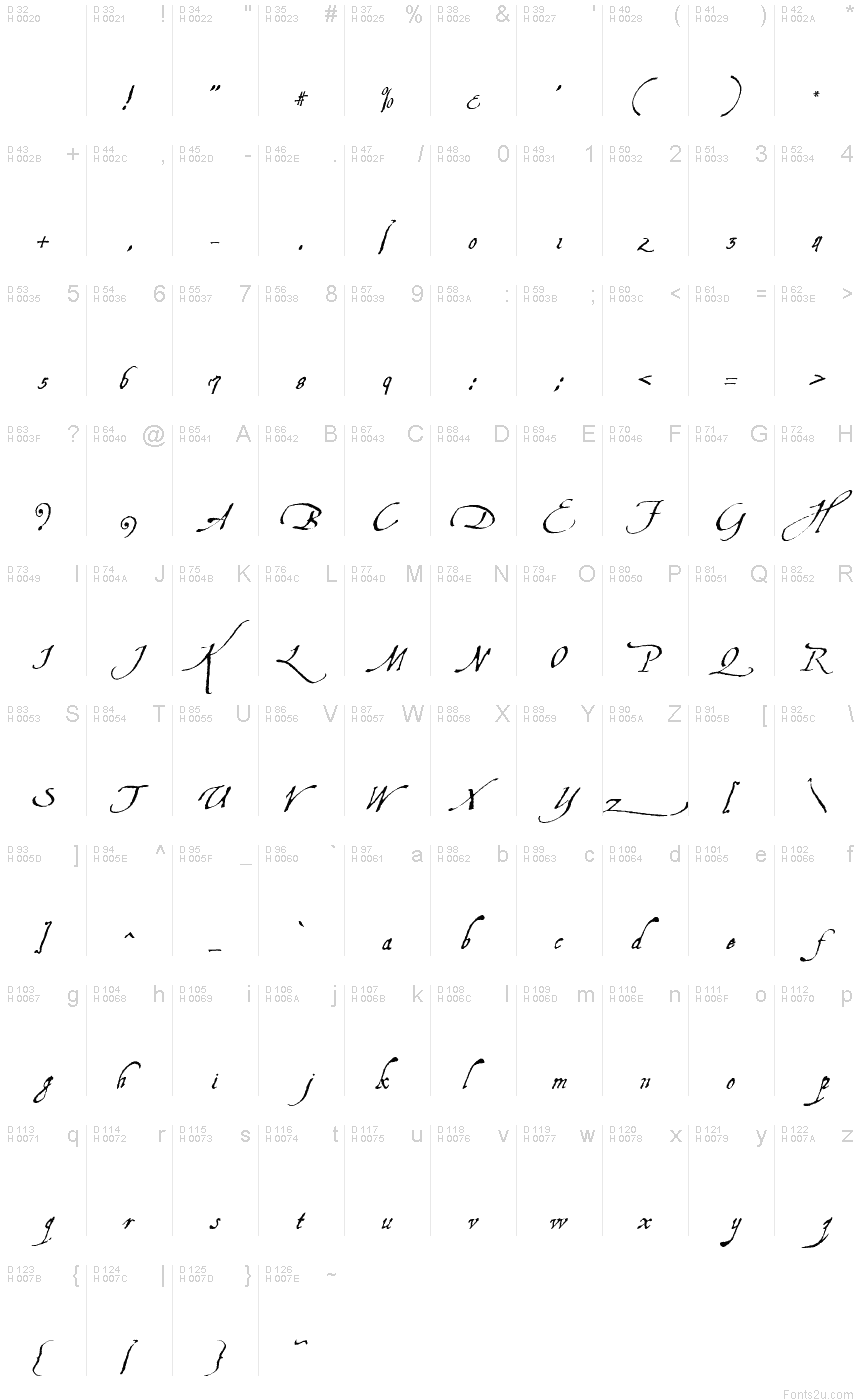
AquilineTwo
AquilineTwo font by Manfred Klein + CybaPee is a free calligraphy typeface that looks like it was scratched onto parchment with a slightly frayed quill. The strokes feel quick and restless, with inky texture, sweeping curves, and unexpected angles that give every word a touch of old-world drama. It has the mood of a stormy letter or a spellbook note rather than neat wedding script, which makes it stand out the moment it hits the page.
Using AquilineTwo, you can instantly push projects toward dark fantasy, gothic, or historical atmospheres—think book covers, game titles, band logos, moody posters, tarot cards, and immersive event invitations. This free font works best at larger sizes where its scratchy detail can breathe, paired with a clean sans serif for small supporting text to keep everything readable while AquilineTwo does the storytelling.
Manfred Klein + CybaPee. Based on Aquiline by Expert Software